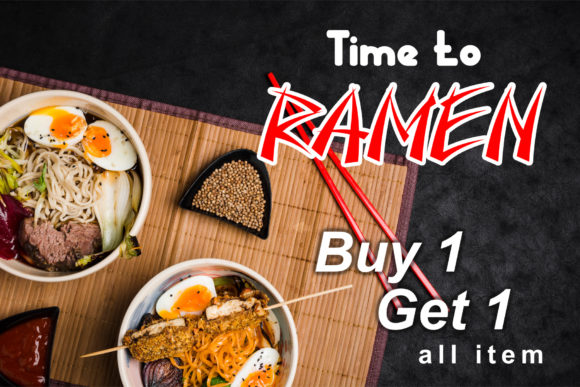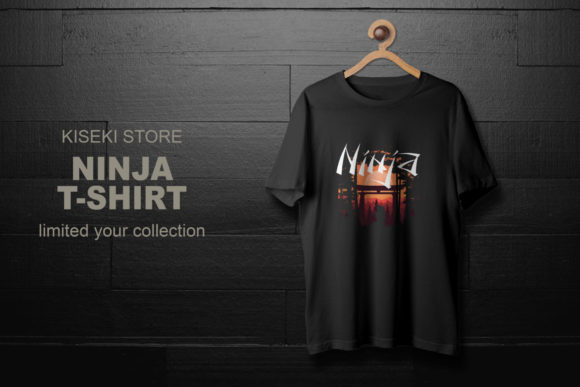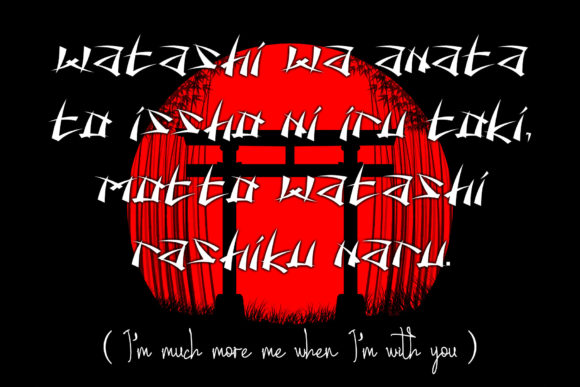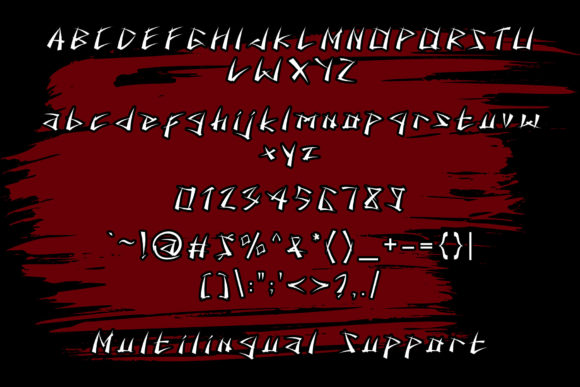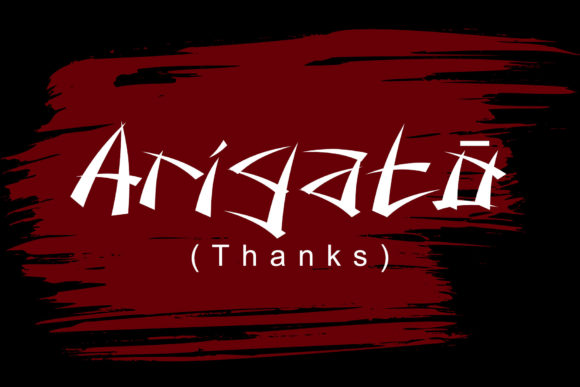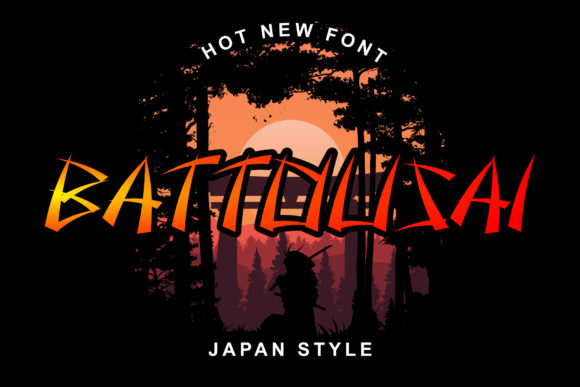
Battousai Font: Elevate Your Designs with a Unique Japanese-Inspired Display Font
In the world of design, fonts play a crucial role in conveying the message and aesthetic of a project. For designers and crafters looking to add a touch of elegance and uniqueness to their work, the Battousai font is an excellent choice. This Japanese-inspired display font is incredibly versatile and can be used in various design applications, from food menus and posters to flyers and prints.
What is Battousai Font?
Battousai is a distinctive and stylish font that draws inspiration from Japanese typography. Its unique design elements make it stand out from more traditional fonts, offering a fresh and modern look that can instantly elevate your designs. Whether you’re working on a project that requires a touch of cultural flair or simply want to add some visual interest, Battousai is an excellent option.
Key Features of Battousai Font
- Unique Design: Battousai boasts a one-of-a-kind design that sets it apart from other fonts. Its Japanese-inspired elements give it a distinctive look that can add a touch of sophistication to any project.
- Versatility: This font is incredibly versatile and can be used in a wide range of design applications, from food menus and posters to flyers and prints.
- Easy to Read: Despite its unique design, Battousai is easy to read, making it perfect for use in body text or headings.
- High-Quality: Battousai is a high-quality font that is designed to look great in any design application.
Uses of Battousai Font
Battousai is a versatile font that can be used in a variety of design applications. Here are some ideas to get you started:
- Food Menus: Add a touch of elegance to your restaurant’s menu with Battousai. Its unique design elements make it perfect for listing dishes, specials, and promotions.
- Posters: Create eye-catching posters for events, promotions, or announcements with Battousai. Its bold design ensures that your message will stand out.
- Flyers: Use Battousai to create flyers for events, sales, or promotions. Its unique design elements make it perfect for grabbing attention and conveying information.
- Prints: Add a touch of sophistication to your print designs, such as brochures, catalogs, or business cards, with Battousai.
Tips for Using Battousai Font
Here are some tips for getting the most out of Battousai:
- Experiment with Sizes: Battousai looks great in a variety of sizes, from small body text to large headings. Experiment with different sizes to find the perfect fit for your design.
- Pair with Other Fonts: Battousai pairs well with a variety of other fonts. Try pairing it with a sans-serif font for a modern look or a serif font for a more traditional feel.
- Use in Combination with Images: Battousai looks great when used in combination with images. Try using it to add text to a photograph or illustration.
Battousai is a unique and versatile font that can add a touch of elegance and sophistication to any design project. Its Japanese-inspired design elements make it perfect for a wide range of applications, from food menus and posters to flyers and prints. With its ease of use and high-quality design, Battousai is an excellent choice for designers and crafters looking to elevate their work.